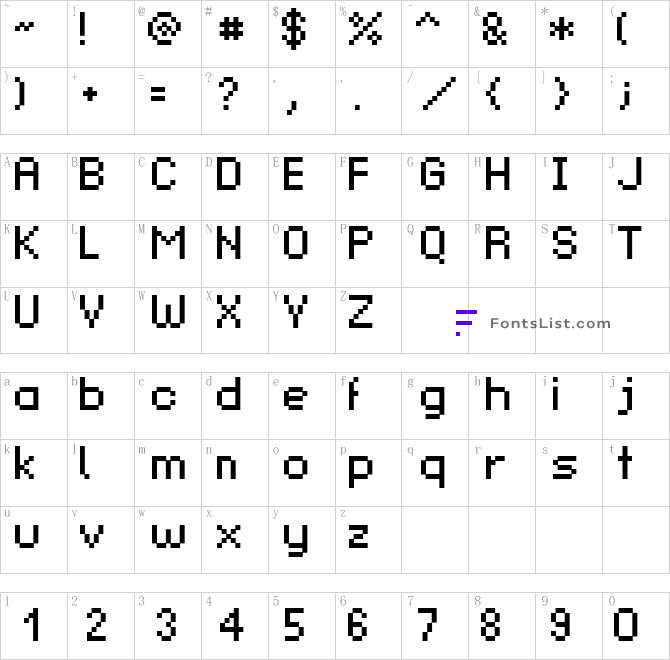
- Font Name:Bavaria Extended
Bavaria-Extended.ttf is a very beautiful artistic font, Bavaria-Extended.ttf is widely used in the design and printing of various books and pictures,Bavaria-Extended.ttf has a strong visual impact,Bavaria-Extended.ttf is a commonly used font in newspapers, magazines and books, and is used in posters, e-commerce Poster design, store design, logo design, font design and other fields.Bavaria-Extended.